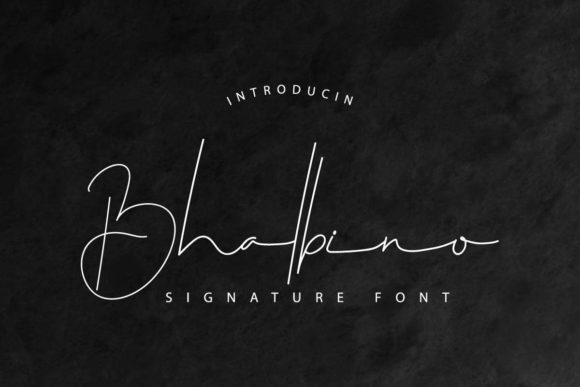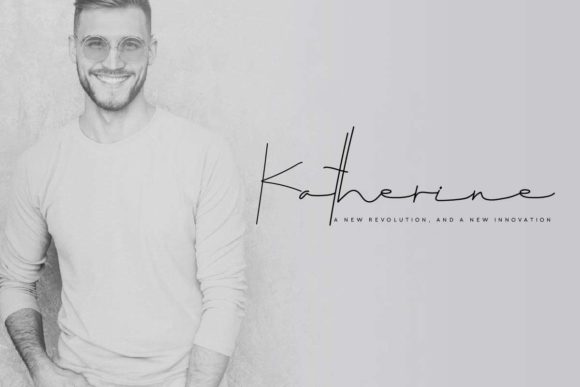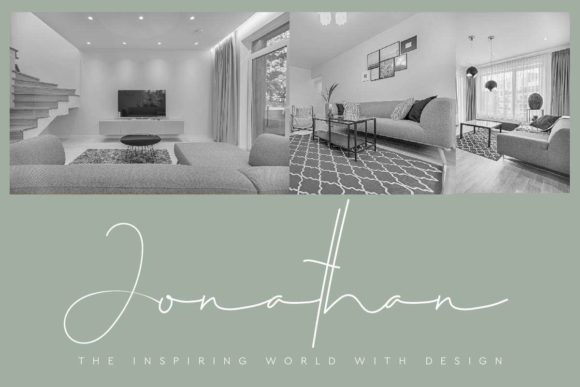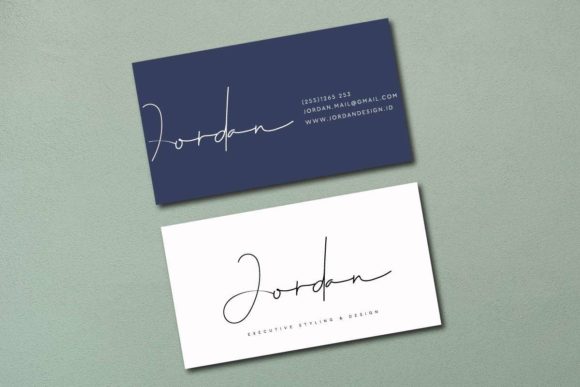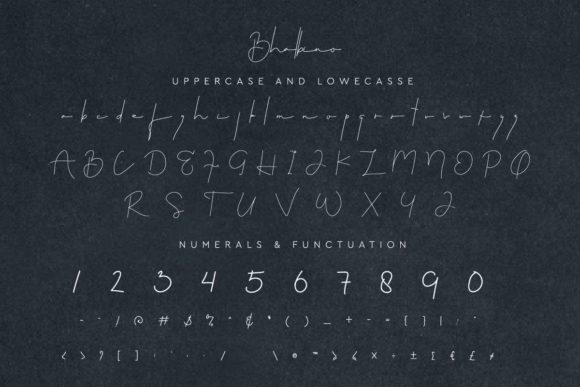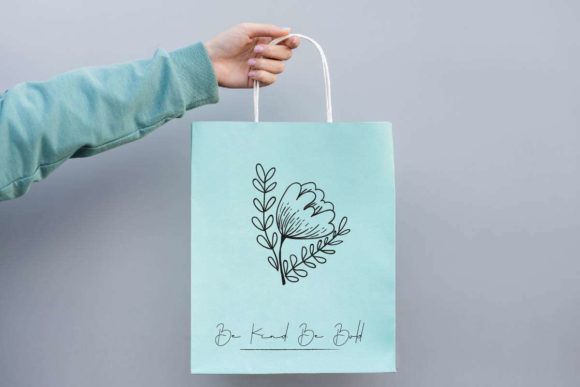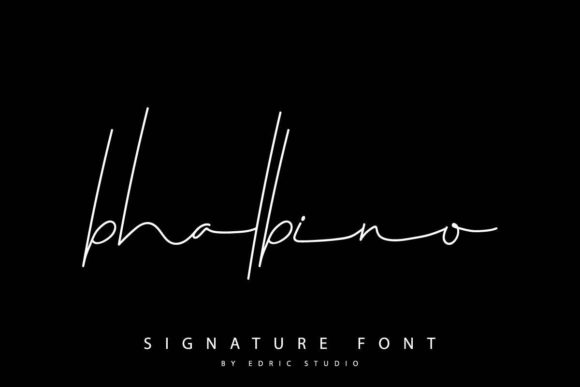
Bhalbino Font: Elevate Your Designs with Elegance and Sophistication
In the world of typography, a font can make all the difference in transforming a design from ordinary to extraordinary. Bhalbino, a stunning script font, has been making waves in the design community with its unique blend of modernity and elegance. In this article, we’ll dive into the world of Bhalbino, exploring its features, and how it can elevate your designs to new heights.
What is Bhalbino Font?
Bhalbino is a beautifully crafted script font that embodies the perfect balance of elegance and modernity. Its unique design makes it an excellent choice for a wide range of design projects, from wedding invitations and stationery to social media posts and greeting cards. With Bhalbino, you can add a touch of sophistication and glamour to your designs, making them truly unforgettable.
Key Features of Bhalbino Font
- Modern Feel: Bhalbino boasts a modern design that is both fresh and contemporary, making it perfect for designers looking to create trendy and stylish designs.
- Elegant Script: The font features an elegant script style that adds a touch of sophistication to any design.
- Versatile: Bhalbino is incredibly versatile, making it suitable for a wide range of design projects, from digital to print.
- Easy to Read: Despite its elegant design, Bhalbino is easy to read, making it perfect for body text and headlines.
Uses of Bhalbino Font
Bhalbino’s versatility makes it an excellent choice for various design projects. Here are some ideas to get you started:
- Wedding Invitations: Create stunning wedding invitations that set the tone for the big day.
- Stationery: Add a touch of elegance to your stationery, including letterheads, business cards, and more.
- Social Media Posts: Make your social media posts stand out with Bhalbino’s modern and elegant design.
- Greeting Cards: Create beautiful greeting cards for special occasions, including birthdays, anniversaries, and holidays.
Tips for Using Bhalbino Font
To get the most out of Bhalbino, here are some tips to keep in mind:
- Pair with Other Fonts: Experiment with pairing Bhalbino with other fonts to create a unique and visually appealing design.
- Use for Headlines: Use Bhalbino for headlines and titles to add a touch of elegance and sophistication.
- Experiment with Colors: Don’t be afraid to experiment with different colors to find the perfect combination that complements your design.
Bhalbino font is a game-changer for designers and crafters looking to elevate their designs with elegance and sophistication. Its modern feel, elegant script, and versatility make it an excellent choice for a wide range of design projects. With Bhalbino, you can create stunning designs that leave a lasting impression. So why wait? Get inspired by Bhalbino’s beauty and take your designs to new heights.